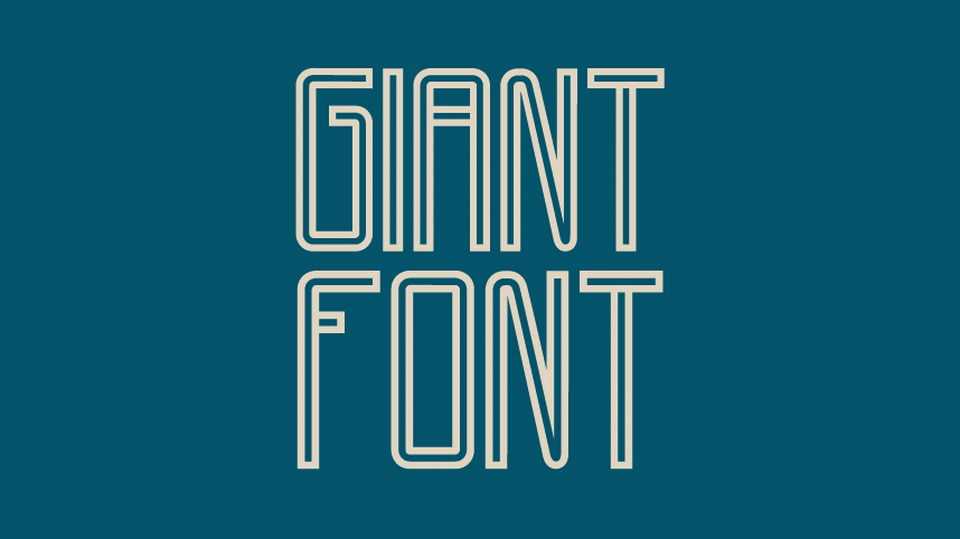
Download Giant font, a tall outlined all caps display typeface. Giant font recommended to use as a headline, but it is also readable for shorts paragraphs.
Designer: Cesar Salazar